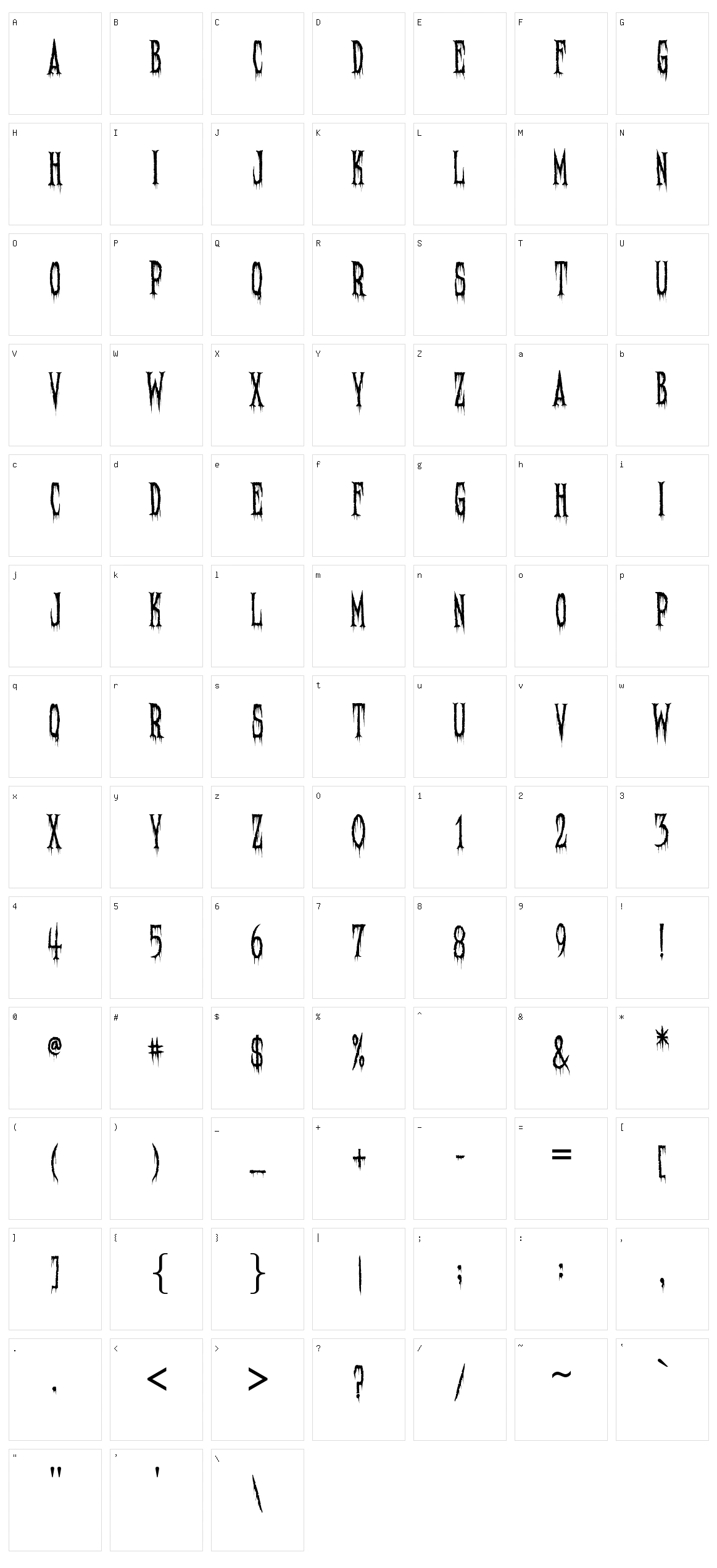
Needleteeth Font Suite by Chad Savage
Created 2011, hand-lettered on Halloween night.
This font is intended for specialty and graphic uses. It will look just awful if used in a paragraph format. The upper and lower cases of Needleteeth Psycho and Needleteeth Spooky alternate sizes - mix and match the cases to GeT tHaT sTaGgErEd LoOk.